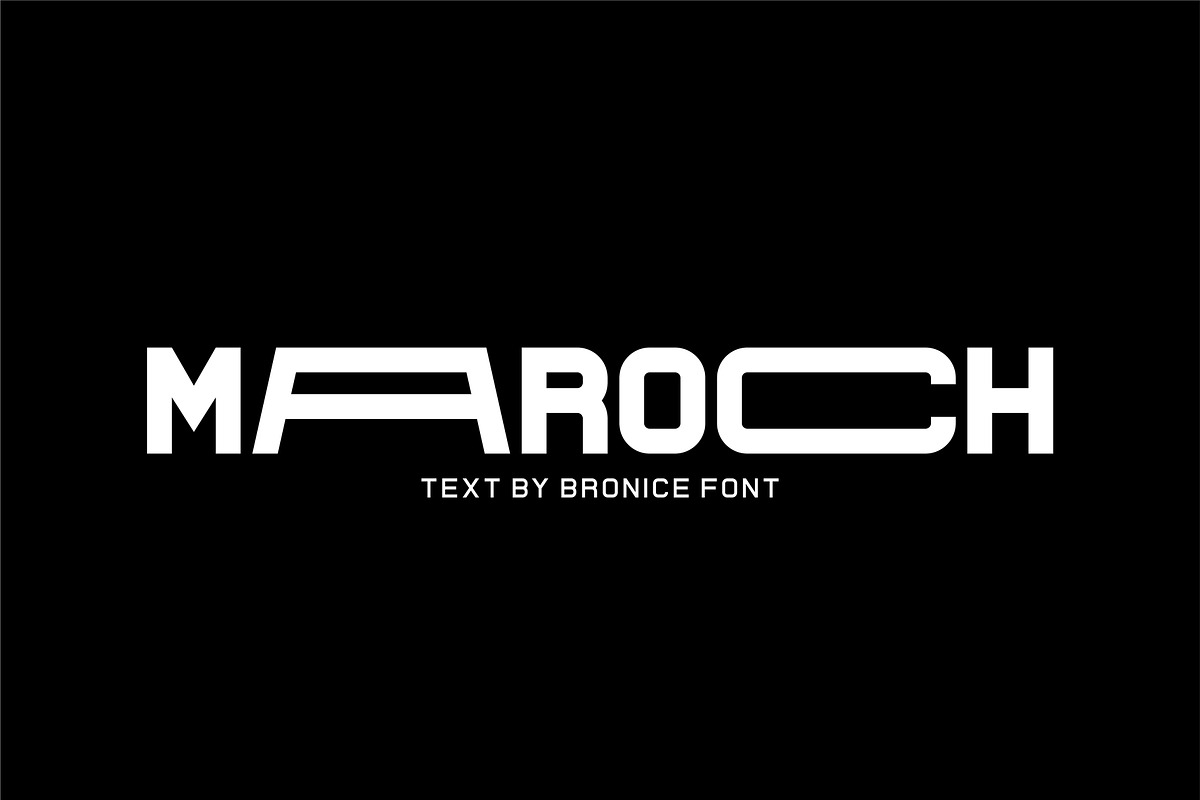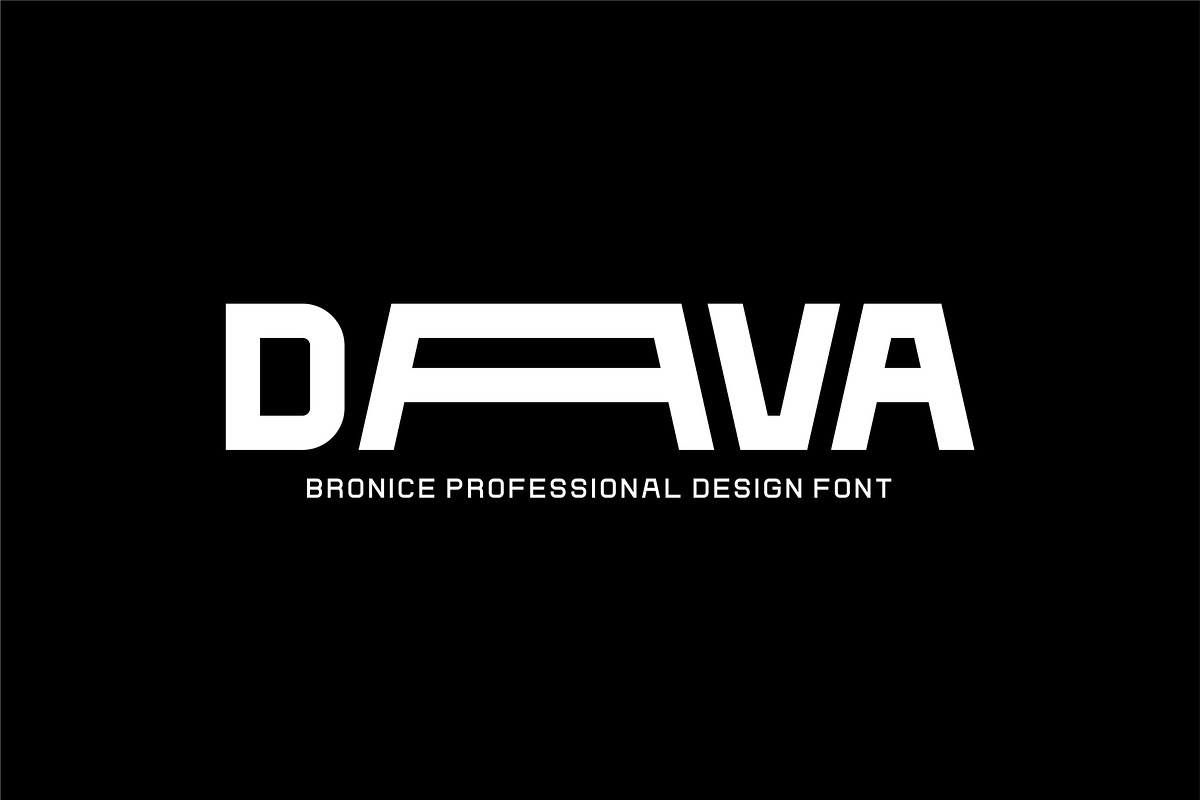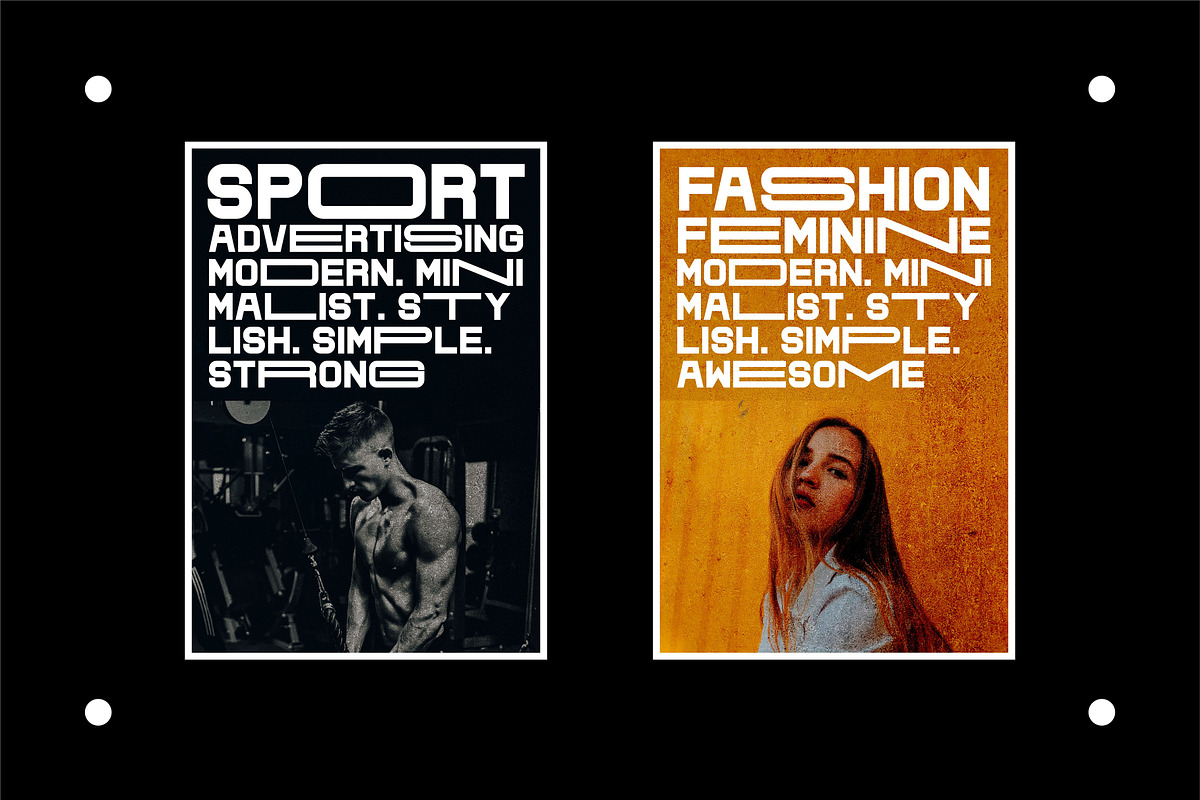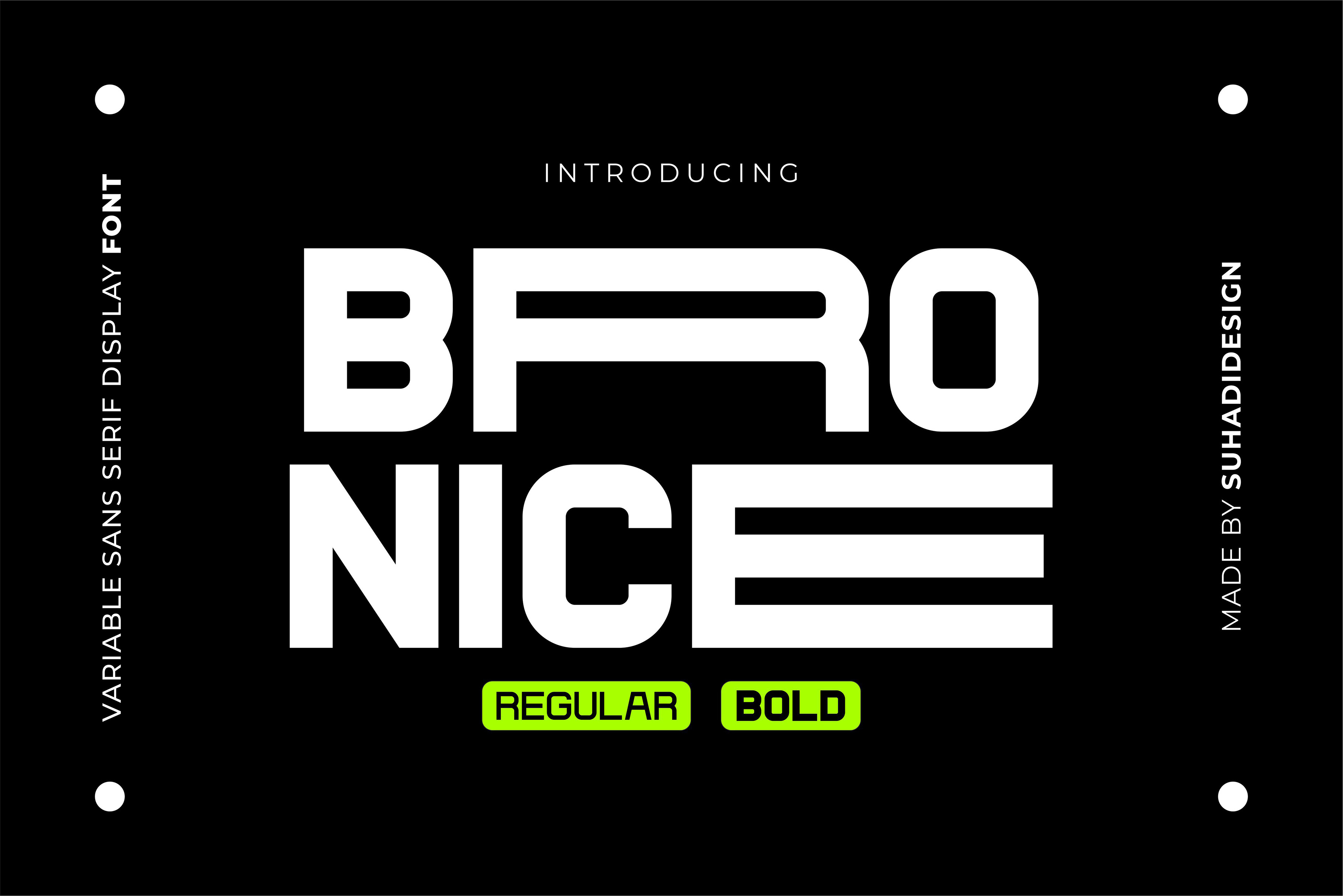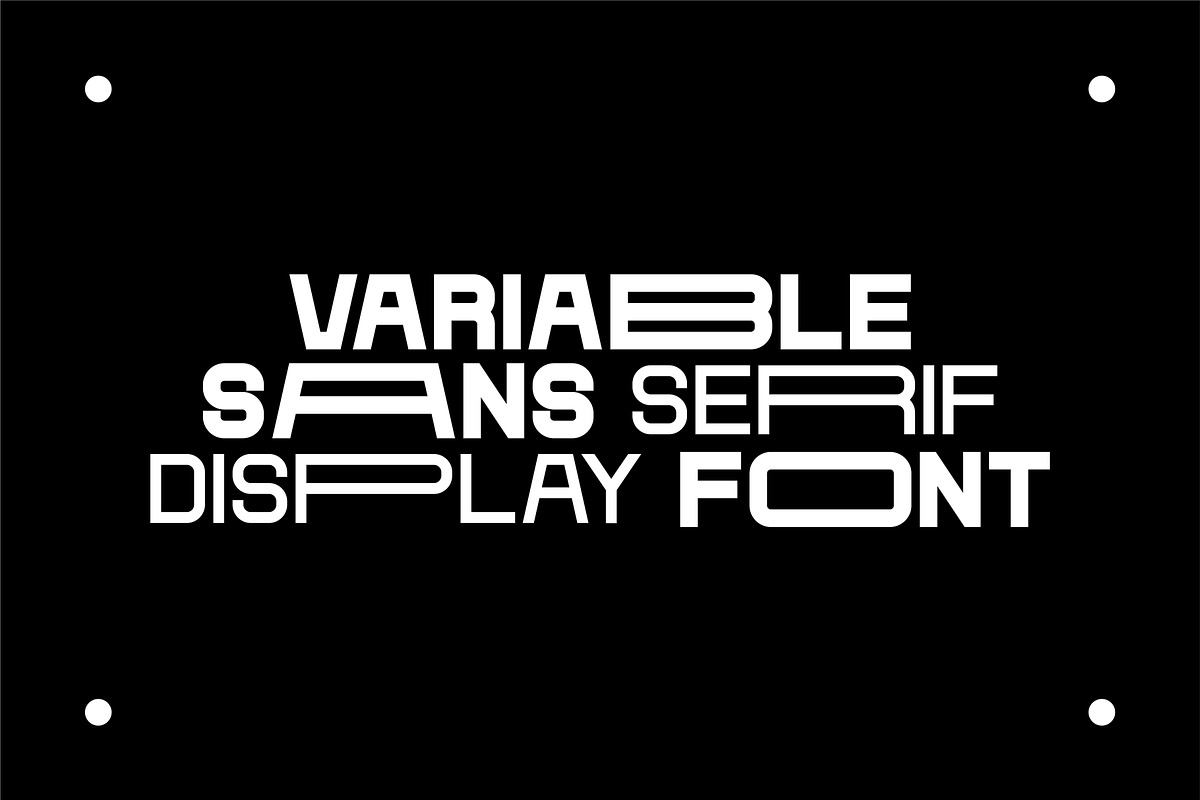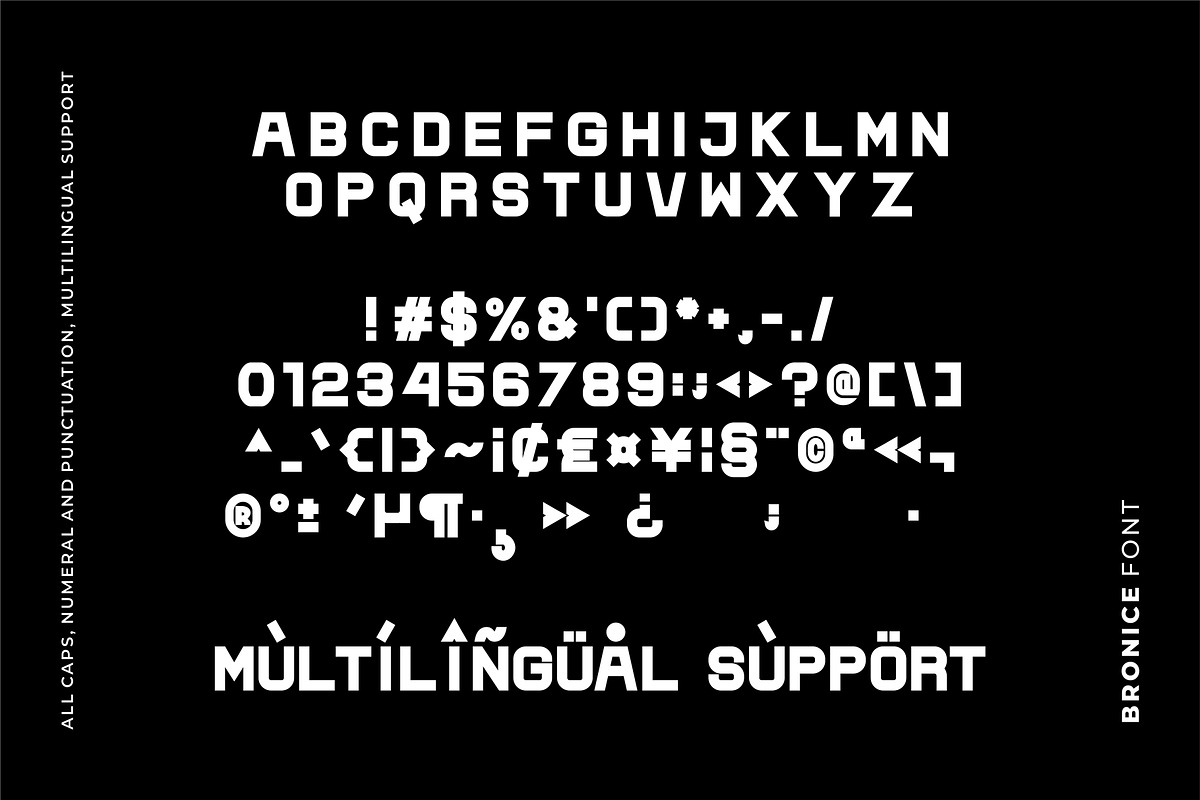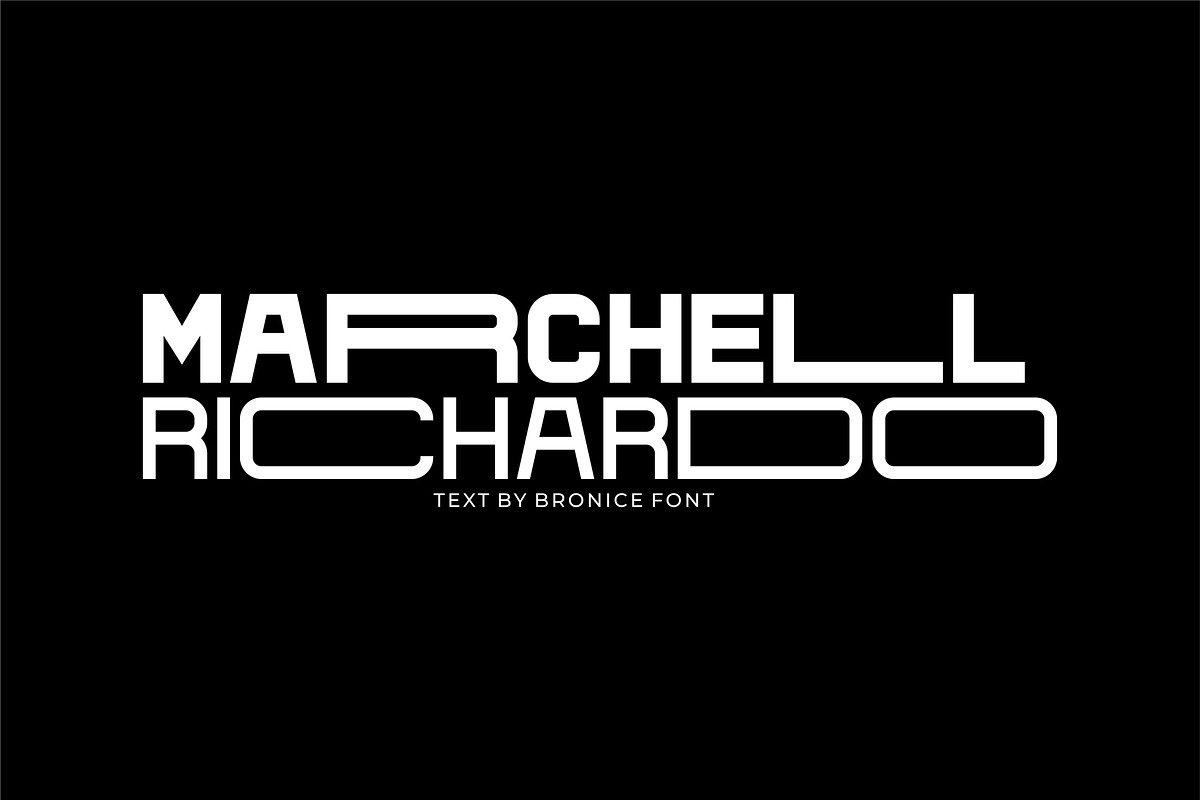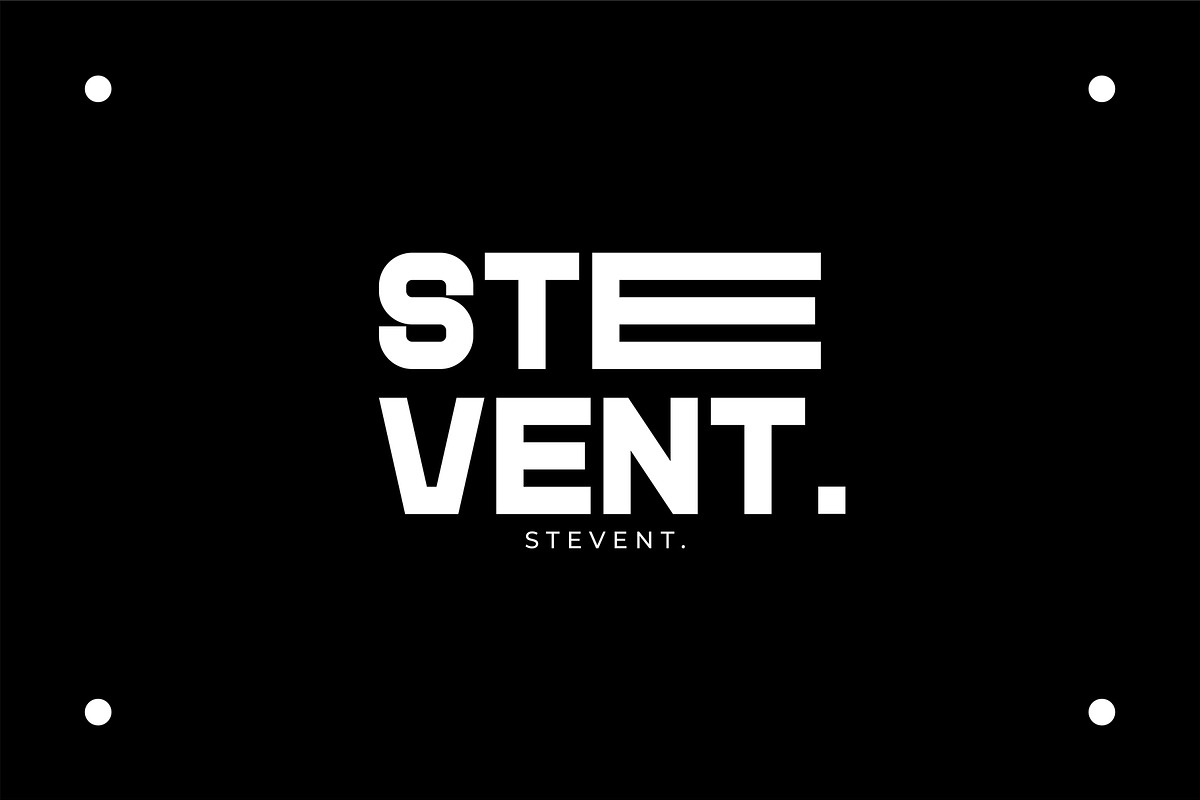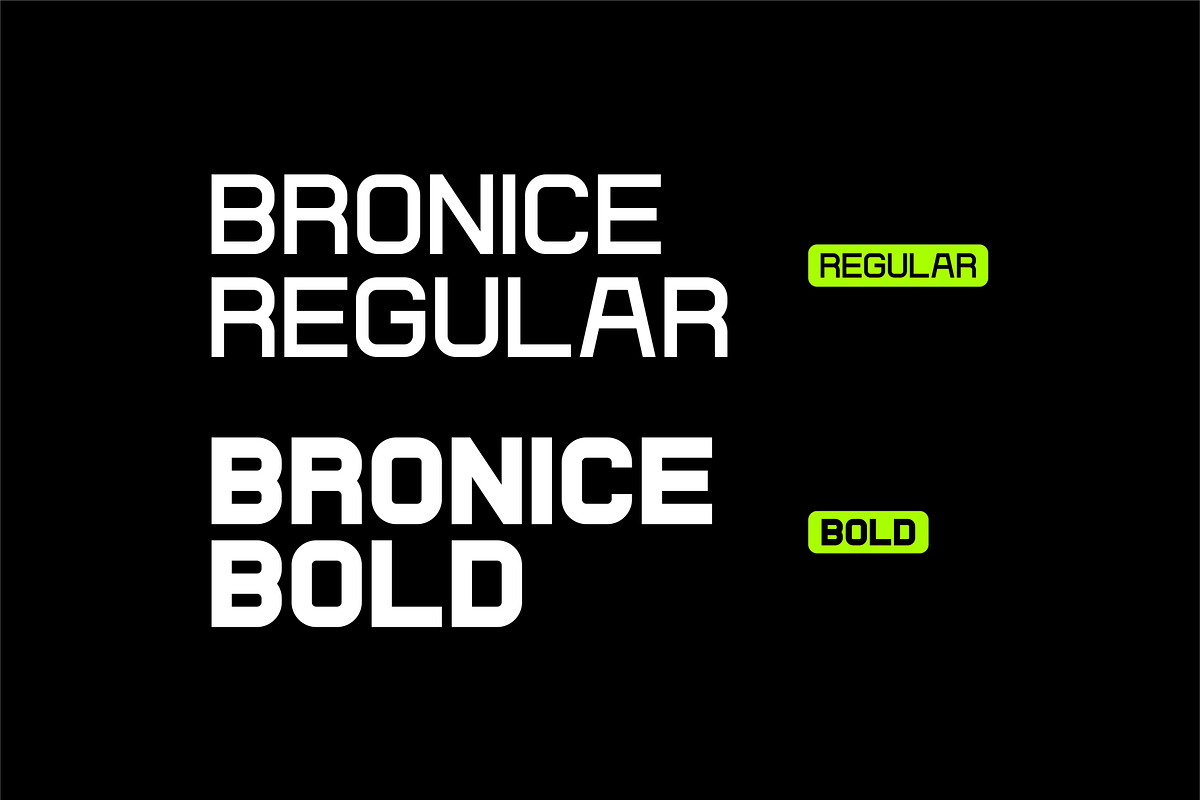
Bronice Extended Width Font
Hi Ladies and Gentlemen! In accordance with market demand, I wanted a nice minimalist font with a modern, simple and trendy style, so I decided to create a cool sans serif font. The Bronice font is a very popular cool modern sans serif font, presented in a modern style with the hope of becoming a market favorite. We keep this font looking elegant, classy, modern, stylish, up-to-date and easy to use. Bronice Font is a great choice for brands, company names, fashion, logos, food menus, brand names, branding, quotes, album covers and other projects. The Bronice font is here to take your designs to the next level.
• All capital letters • Alternate letters extended width • Regular and Bold versions • Multilingual support • Numbers and punctuation